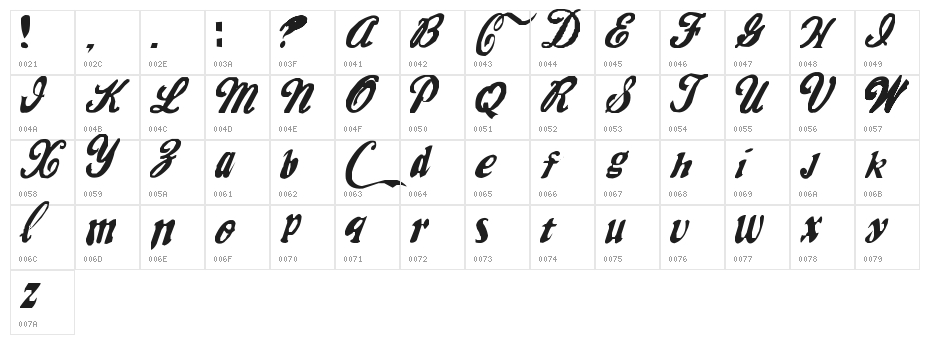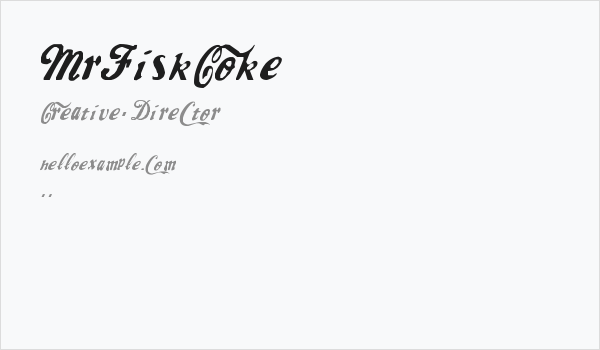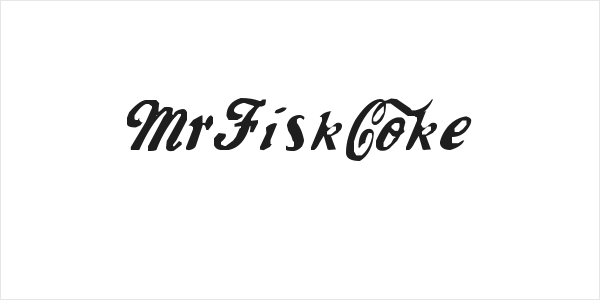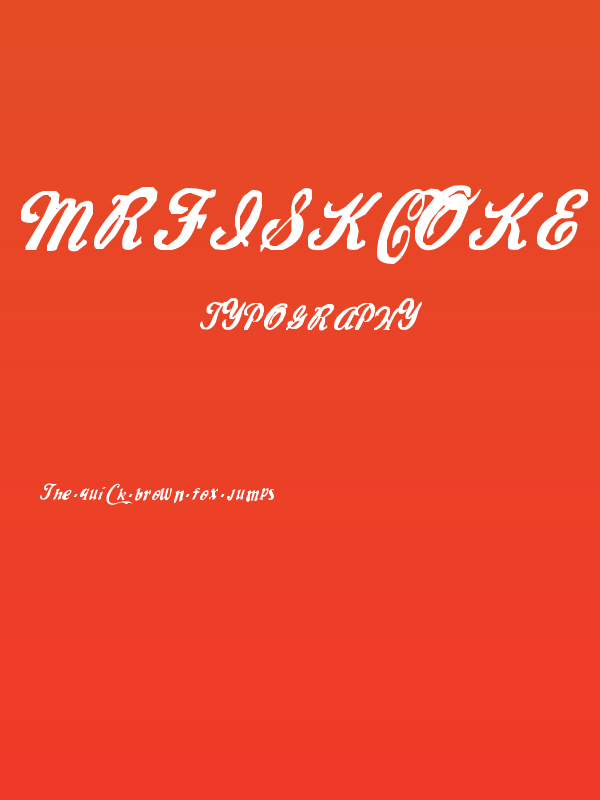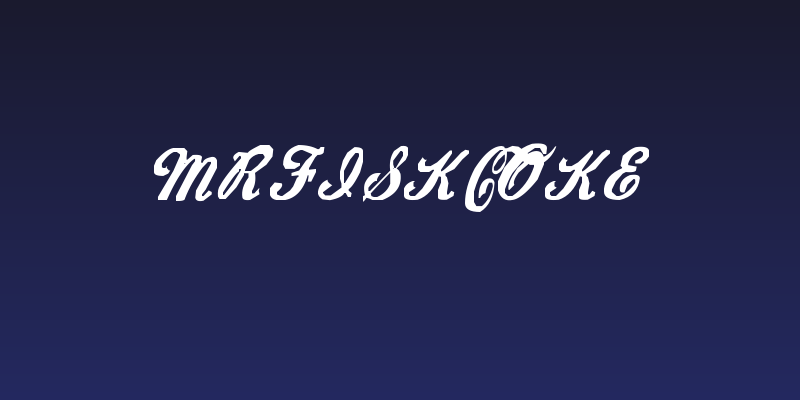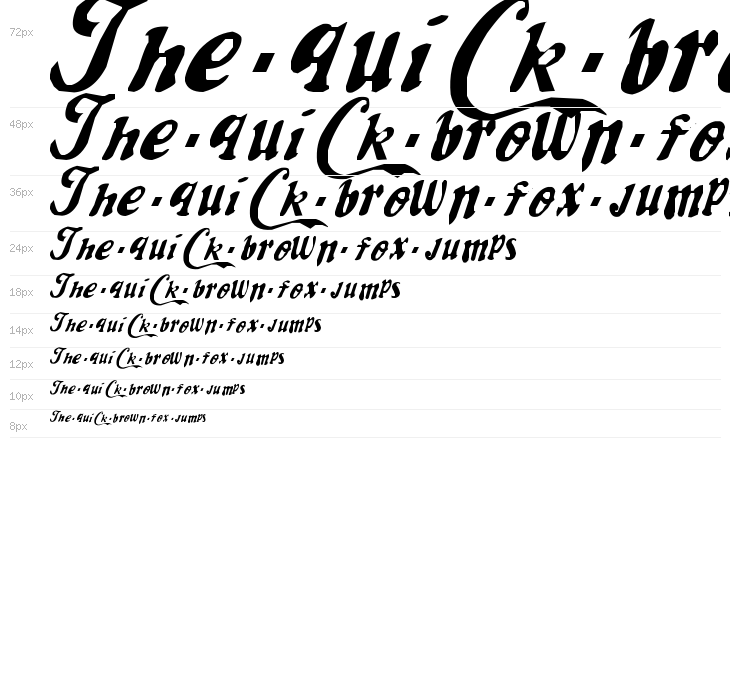
MrFisk-Coke Font
MrFisk-Coke Description
This font features a bold and expressive style with a strong emphasis on cursive and calligraphic elements. The uppercase letters are ornate, with sweeping curves and flourishes that give a sense of movement and elegance. The lowercase letters maintain a consistent style, with some characters featuring unique loops and tails that add to the overall decorative appearance. The numbers and special characters are designed to match the flowing style of the alphabet, ensuring a cohesive look across all text. This font is ideal for projects that require a touch of sophistication and flair.